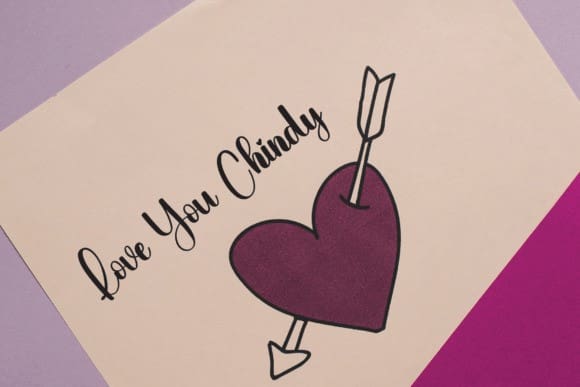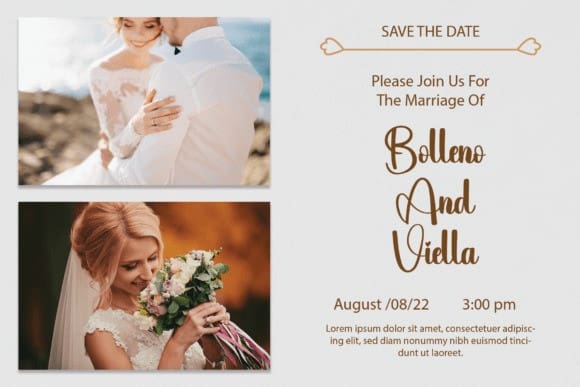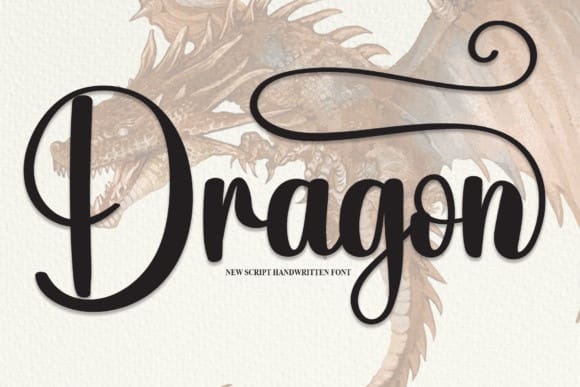
Dragon Script Font
Dragon Script Font, is a dazzling script font. This font is neatly crafted and highly detailed. Whatever the topic, this font will be a wonderful asset to your font library, as it has the potential to enhance any creation.